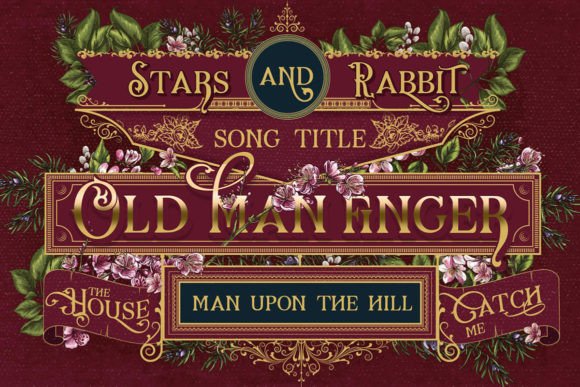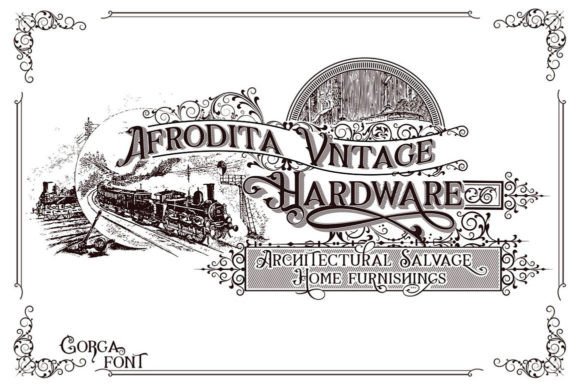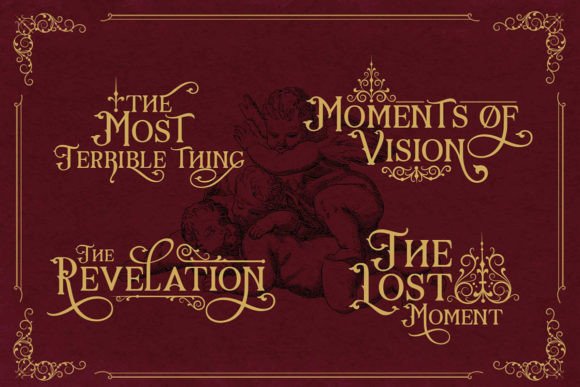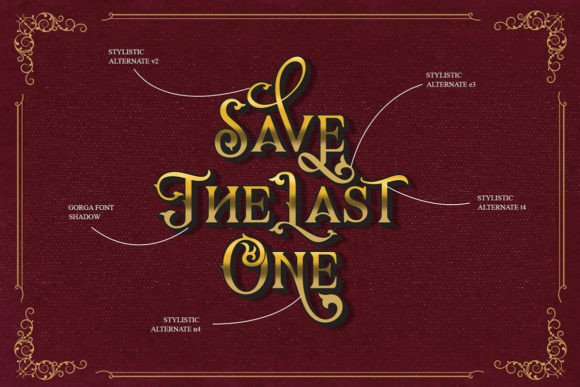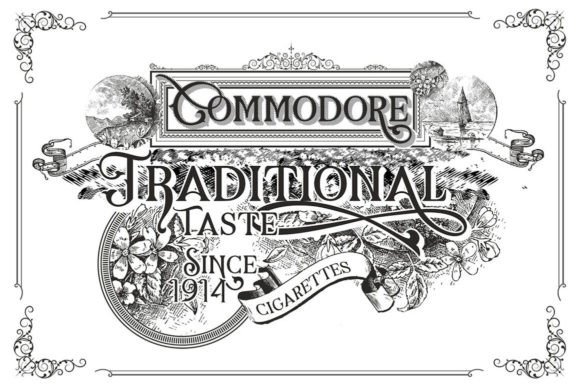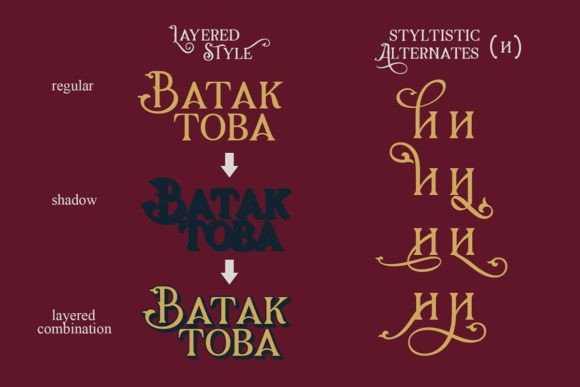
The Timeless Elegance of Gorga Font: A Designer’s Delight
I still remember the project that led me to discover the charming Gorga font. I was working on a vintage-themed wedding invitation, and my client was adamant about finding a font that would transport their guests back in time. After hours of scouring through font libraries, I stumbled upon Gorga, and it was love at first sight! ✨ The intricate details, the flowing strokes, and the ornate serifs all came together to create a truly sophisticated design.
An Honest Review of Gorga Font
What I Love About Gorga Font
- ✨ Elegant and flowing strokes that exude a sense of nostalgia
- ✅ Intricate details and decorative elements that add a touch of sophistication
- 💫 Perfect for adding a vintage charm to invitations, packaging, and editorial layouts
- 🎨 Highly versatile and can be used for a variety of design projects
While Gorga font is a stunning addition to any design project, there are a few things to keep in mind. ⚠️ Some users have reported that the font can be a bit finicky when it comes to kerning, so be sure to adjust as needed. Additionally, the font’s intricate details may not render well at very small sizes, so it’s best to use it at larger sizes for optimal results. 🤔
One of the standout features of Gorga font is its extensive range of OpenType features and glyphs. These include:
- Stylistic alternates: offering a range of alternative letterforms to add visual interest to your design
- Swashes: adding a touch of elegance and sophistication to your text
- Ligatures: combining letters to create a more fluid and natural look
The Story Behind Gorga Font
Gorga font was inspired by the ornate and intricate designs of the Victorian era. Its creator, a talented type designer, sought to capture the essence of this bygone era in a modern font that would be perfect for designers and crafters alike. The result is a truly timeless design that is sure to add a touch of elegance and sophistication to any project.
| Font Name | Gorga Font |
| Author | JumboDesign |
Q: What is the best way to use Gorga font?
A: Gorga font is best used at larger sizes, such as in headings or titles, to showcase its intricate details and decorative elements.
Q: Is Gorga font available in different weights?
A: Currently, Gorga font is available in a single weight, but its creator is working on adding additional weights in the future.